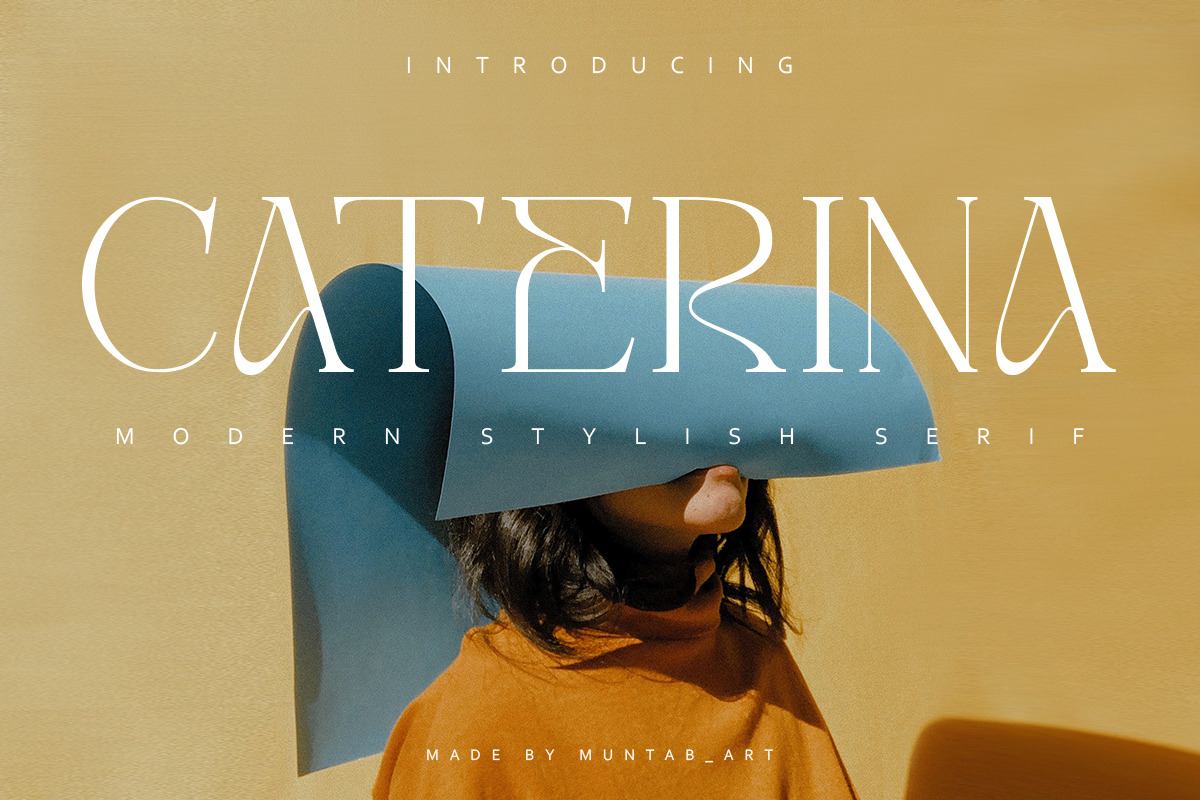
Caterina | Modern Stylish Free Download
Caterina | Modern Stylish Font Free Download
Elevate your design with elegance using the Caterina | Modern Stylish Font Free Download — a graceful and contemporary typeface crafted for those who appreciate timeless beauty with a modern twist. With its clean lines, flowing forms, and fashionable flair, Caterina is ideal for logos, high-end branding, social media graphics, and editorial layouts.
This font exudes sophistication while maintaining versatility. Whether you're designing for a fashion label, beauty product, wedding suite, or influencer brand, Caterina adds a soft yet confident voice to your visual identity. It's a go-to choice for designers aiming to leave a lasting impression.